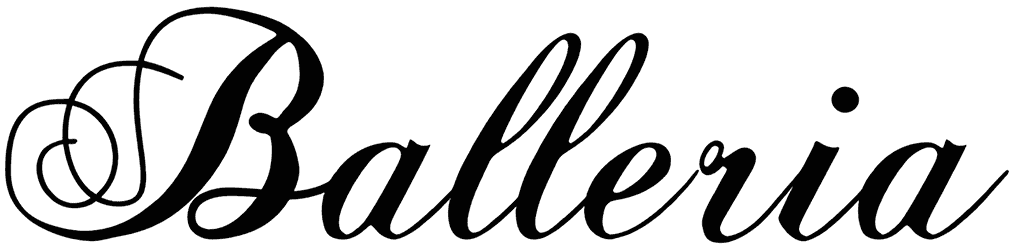
Balleria Font
Balleria is a very special script font that pushes a sense of softness, femininity, delicacy, and precision on any kind of editorial project. This love font has angular and cursive characters, thus it will look perfectly fit for a wide set of artwork ranging from logos, branding, romantic movie brochures, or headlines.
Balleria is a classy and lovely script font. It has a elegant style and is perfect for creating original designs.
This lovely script font is really great for a logo, clothing, quotes, headings, wedding invitations, posters, and many others.